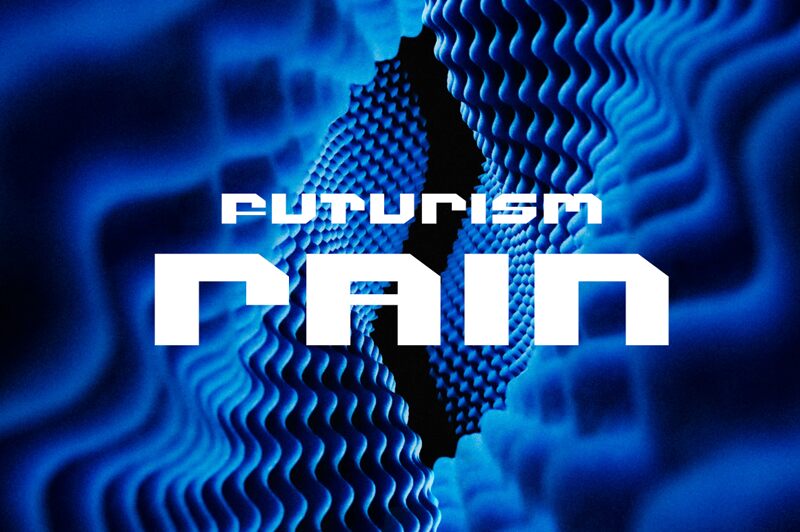
FF Rain font, designed by ffeeaarr, is a futuristic and geometric display font designed for contemporary applications in technology, digital media, and branding. It borrows elements from old school styles, too, making the final visual result even more effective. The striking and dynamic vibe of the typeface encompasses the entire capital letters set, numbers, punctuation, and symbols.
FF Rain is the perfect fit for posters, logos, packaging design, and much more. Applications suitable for integrating this font include landing pages and app designs. Back to print, book and magazine covers, advertisements, banners, stationery, and products could also be good options.